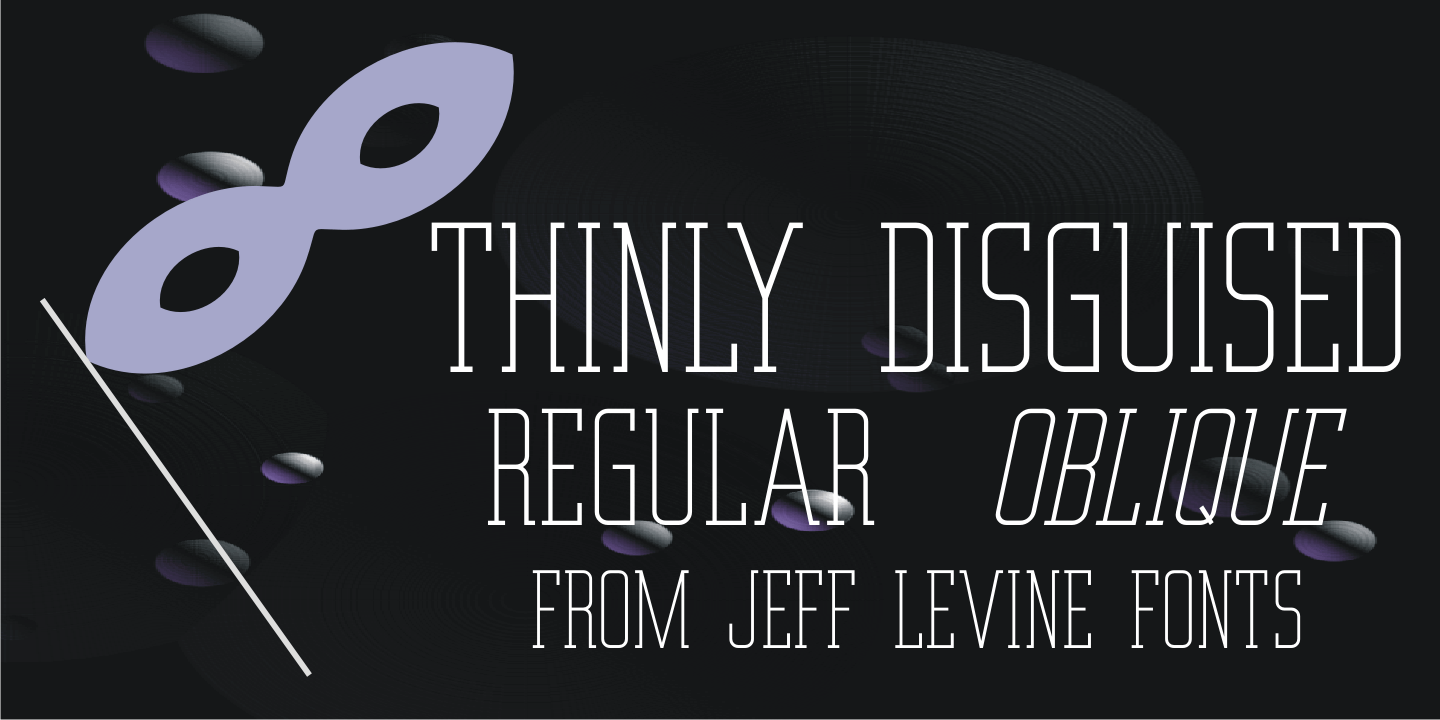
Thinly Disguised
The hand lettered thin, variable width slab serif text appearing on the cover of a souvenir photo book for the 1933 Chicago World's Fair Exposition is the basis for Thinly Disguised JNL.
Thinly Disguised JNL Regular
Thinly Disguised JNL Oblique